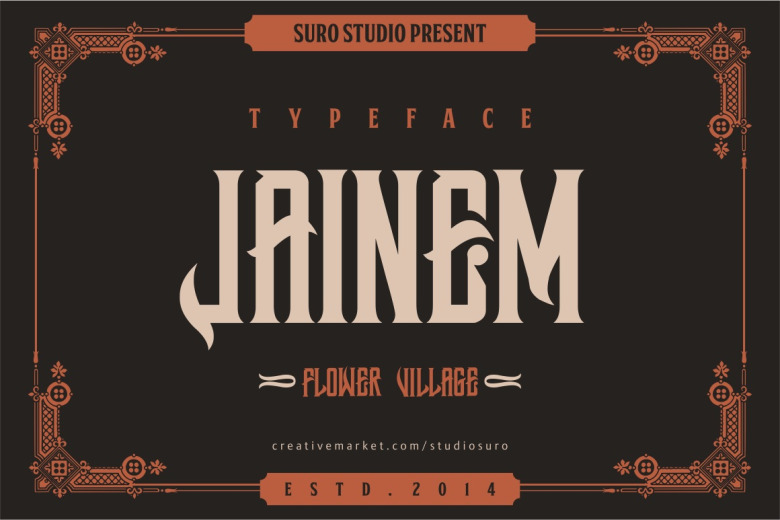
Jainem Font
Jainem Font is a high quality Blackletter font. This is available for free download and personal use. The free version provides all uppercase and lowercase letters and a few special characters too.
This typeface good for vintage design, Display, t-shirt, logo, labels, posters and etc.